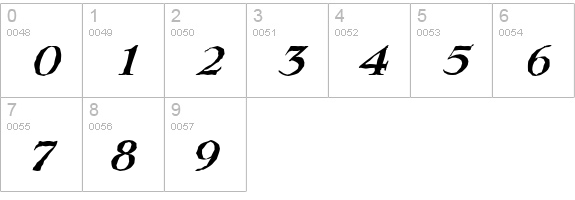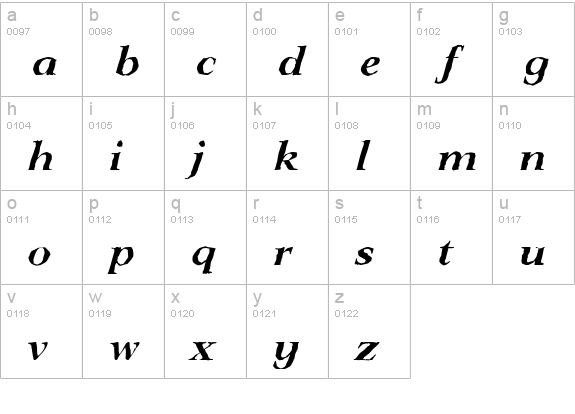
LingwoodAntique-BoldItalic Font Details
LingwoodAntique-BoldItalic is a stunning and elegant font that exudes a sense of sophistication and charm. With its bold and italic features, this font is perfect for adding a touch of class to any design project. The intricate details and unique flourishes of LingwoodAntique-BoldItalic make it stand out from the crowd and elevate any text to a new level of beauty. What makes LingwoodAntique-BoldItalic even more special is that it is available for free download at FontsMarket.com. This means that you can easily access this exquisite font and use it in your personal or commercial projects without any cost. Embrace the timeless beauty of LingwoodAntique-BoldItalic and enhance your designs with its classic appeal. Download it now and let your creativity shine with this exceptional typeface.